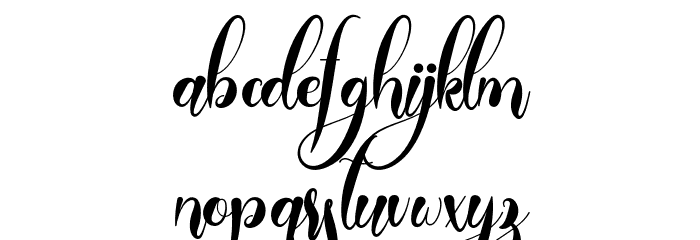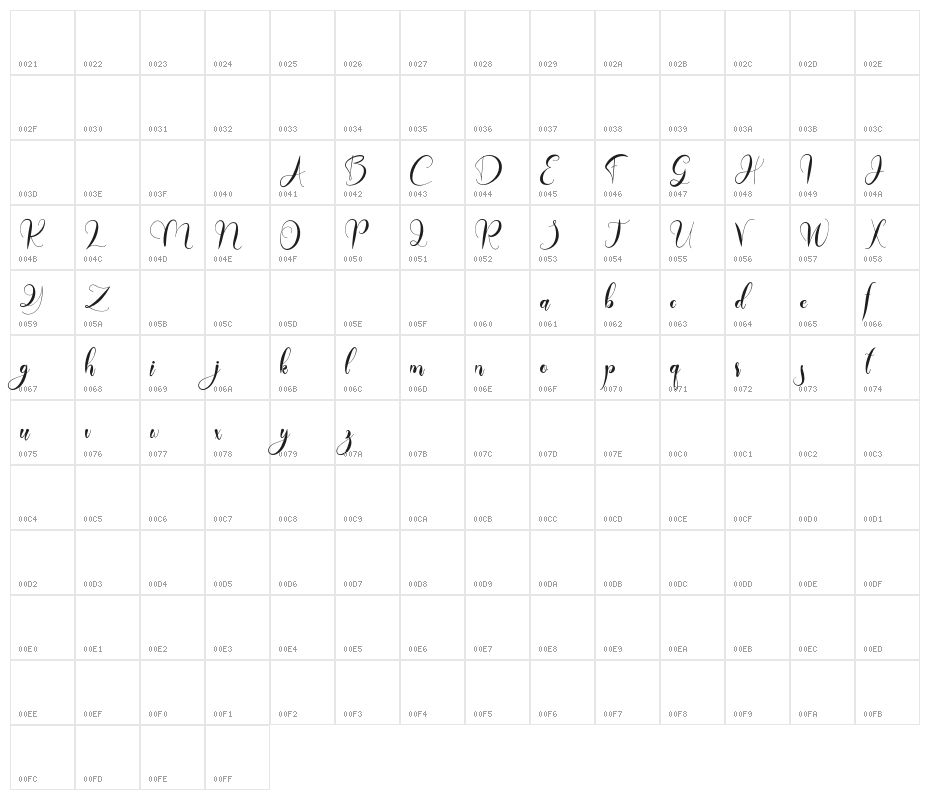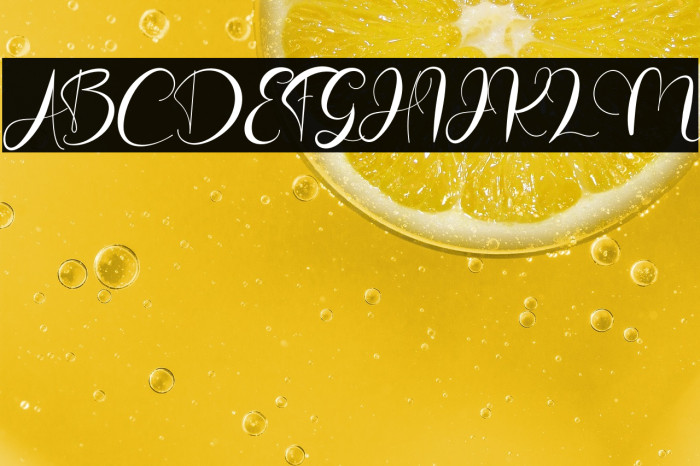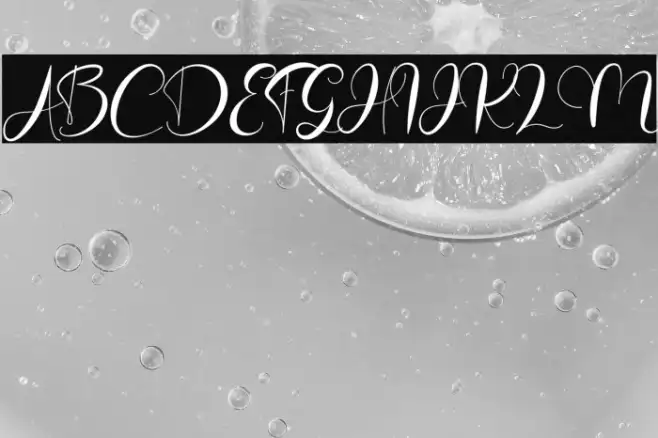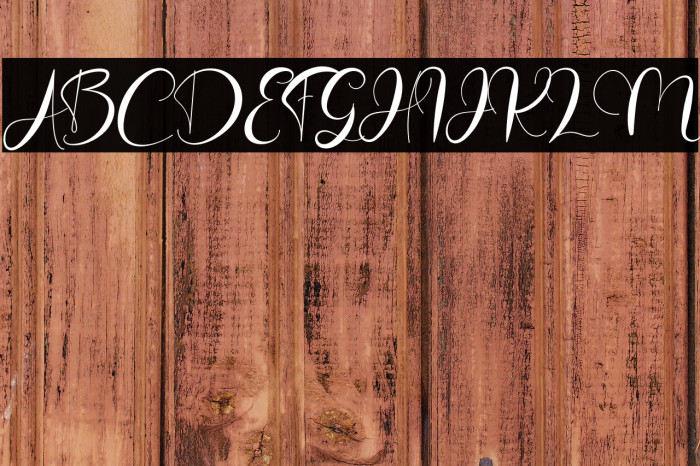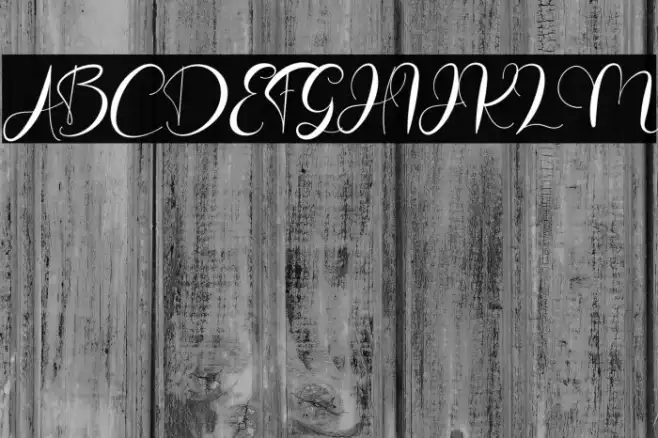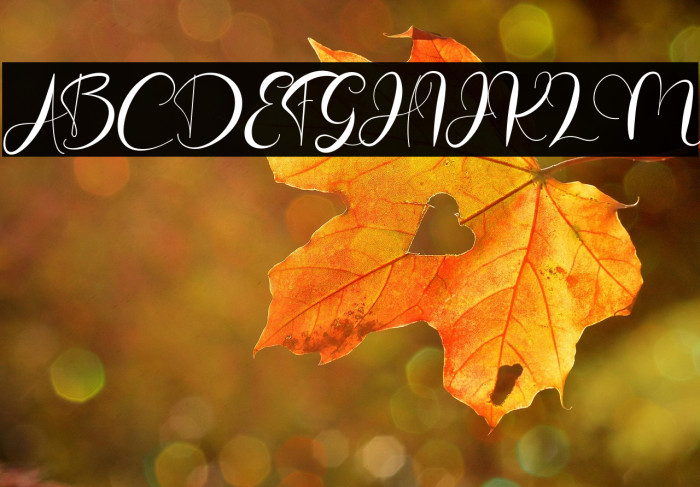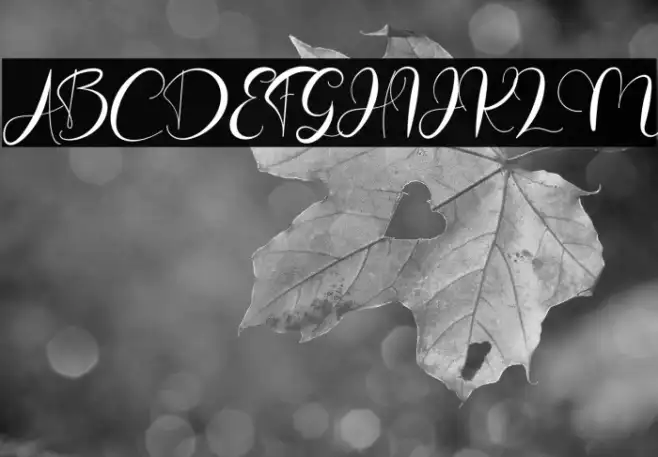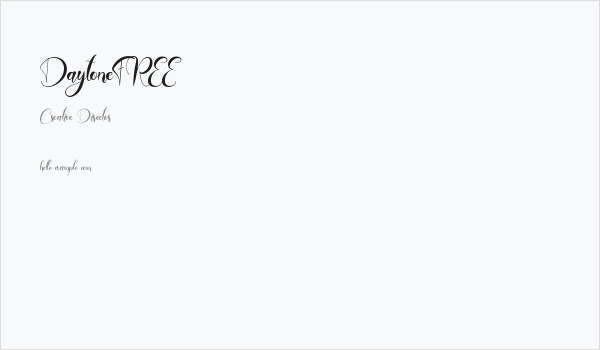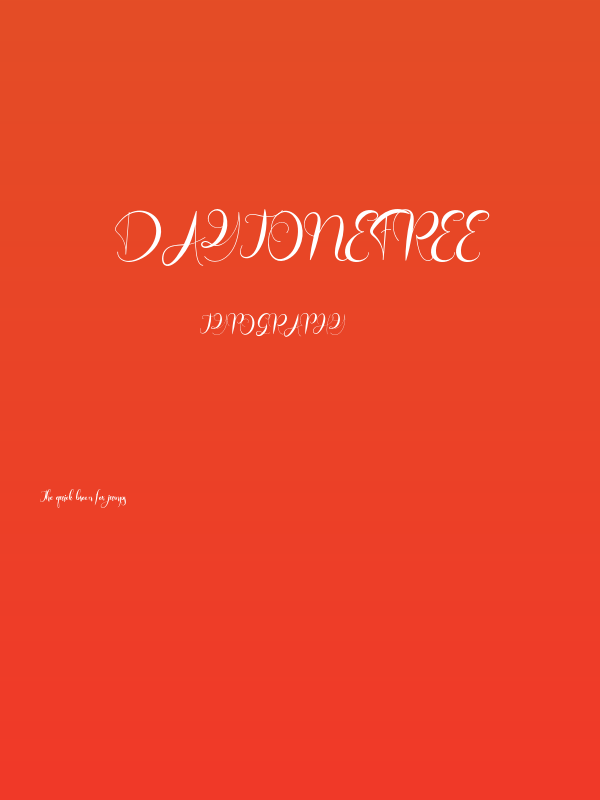
DaytoneFREE Font
This font features an elegant and flowing script style, characterized by its intricate and decorative letterforms. The uppercase letters are particularly ornate, with sweeping curves and flourishes that give a sense of movement and grace. The lowercase letters maintain a consistent style, with smooth connections and a slightly more compact form. The overall design is sophisticated and artistic, making it suitable for creative and formal applications. The font's unique style is enhanced by its high contrast in stroke thickness, adding to its visual appeal.
An elegant and flowing script font with ornate letterforms and high contrast.
- Font: DaytoneFREE
- Proposed Projects: Ideal for wedding invitations, luxury branding, greeting cards, and artistic projects.
- Category: Script
- Use Case: Logos, Headlines, Invitations